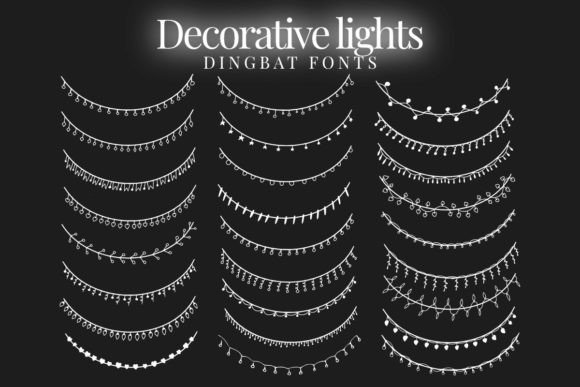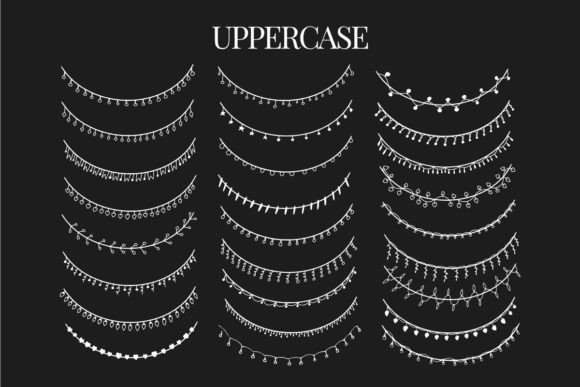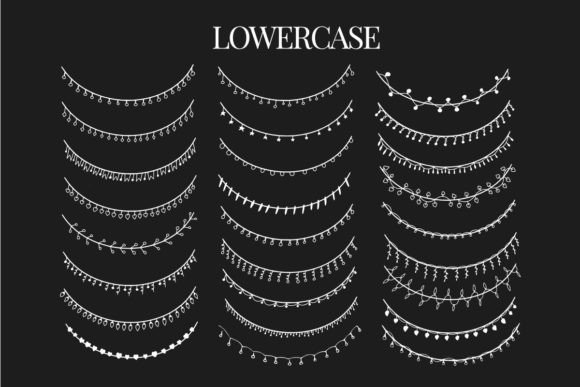
About Decorative-lights Font
Introducing a set of beautifully designed decorative lights that will add a touch of magic and charm to your next projects. These lights are not only visually appealing but also highly versatile, making them a great asset for a wide range of creative endeavors.
Whether you’re working on graphic designs, digital artwork, invitations, posters, or even websites, these decorative lights will effortlessly elevate your creations. Their unique and captivating designs will capture attention and create a warm and inviting atmosphere in your projects.
The set includes a variety of light styles, from fairy lights to vintage bulbs, lanterns, and more. Each light is intricately designed to showcase its own distinctive shape, pattern, and glow. You’ll find an assortment of colors, sizes, and arrangements, allowing you to choose the perfect light for your specific project.
These decorative lights can be used in numerous ways to enhance your designs. You can incorporate them as borders or frames, adding a whimsical touch to your artwork. They can be used as focal points, guiding the viewer’s attention to important elements or creating a cozy ambiance. You can even create stunning patterns and backgrounds using these lights, giving your designs a unique and captivating look.
Additionally, the versatility of these decorative lights extends to various mediums. They can be used in both print and digital formats, ensuring their compatibility with different design projects. Whether you’re creating printed materials such as posters, flyers, or greeting cards, or working on digital platforms like websites or social media graphics, these lights will seamlessly integrate and enhance your visual compositions.
Furthermore, these lights can be easily customized to suit your specific needs. Adjust their size, color, opacity, and position to perfectly fit your project’s aesthetic. Experiment with different blending modes and layering techniques to achieve the desired visual effect. The flexibility and adaptability of these lights allow you to unleash your creativity and create truly unique and personalized designs.
In conclusion, this set of beautifully designed decorative lights is a versatile and unique asset for your next projects. Whether you’re working on graphic designs, digital artwork, invitations, posters, or any other creative endeavor, these lights will bring a touch of magic and charm to your compositions. Explore the endless possibilities and let these lights illuminate your creativity.